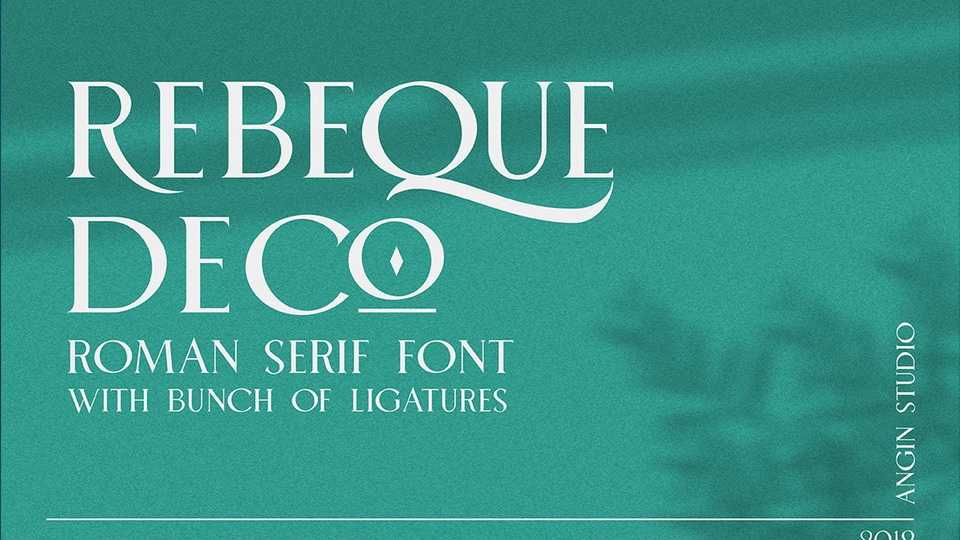
Download Rebeque Deco font, a display typeface, created based on roman serif with a touch of art deco style. Rebeque Deco font created carefully to looks beauty and stunning.
Designer: Angin Studio